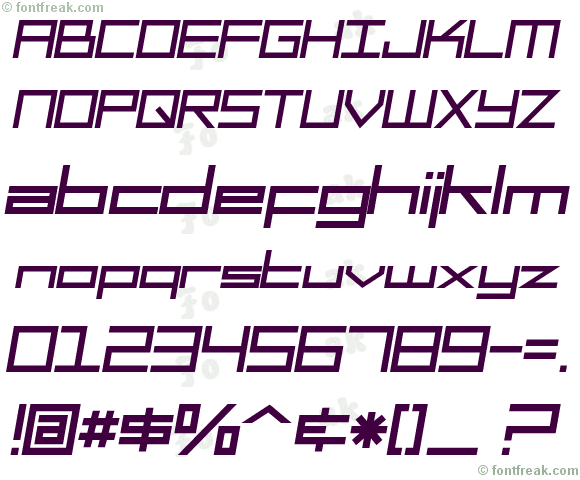
The Square Head font by Shyfonts Type Foundry is a striking display typeface that captures attention with its bold, geometric form. Released as freeware, Square Head features a condensed design that combines square and rectangular shapes, making it an ideal choice for contemporary design projects. The font exudes a strong personality, characterized by its thick stroke weight and minimal contrast, creating a uniform appearance that is both modern and eye-catching. With its italic and bold variations, Square Head offers versatility for various design applications.
Visually, Square Head stands out due to its clean lines and sharp angles, which give it a dynamic feel that can elevate any project. The spacing is well-balanced, allowing for legibility while maintaining an impactful presence. Its lack of decorative elements keeps the focus on its unique structure, making it suitable for both headlines and body text in diverse contexts.
This font is perfect for a range of use cases. Graphic designers may find it particularly useful for creating movie posters that demand attention or for branding small businesses that want to convey a modern image. Additionally, Square Head can enhance restaurant menus, giving them a contemporary flair that appeals to a younger audience. Content creators looking to add a punch to their digital graphics or social media posts will also benefit from its bold aesthetic.
Targeting graphic designers, small business owners, and content creators alike, the Square Head font free download offers an opportunity to incorporate a distinctive typeface into creative projects. What sets Square Head apart is its ability to combine simplicity with boldness, making it a versatile choice for anyone looking to make a statement in their design work. This font not only captures the essence of modern typography but also provides a unique voice that can elevate your message.